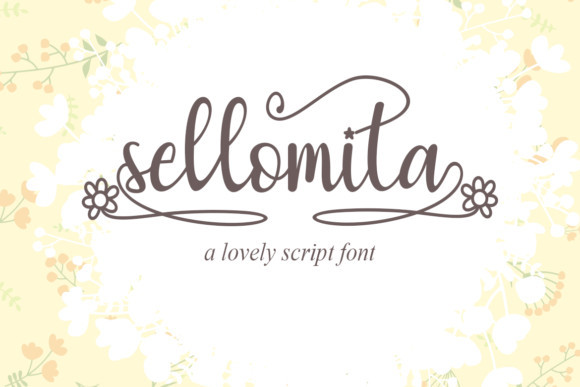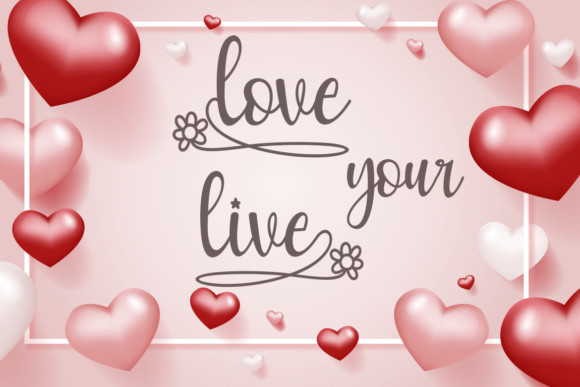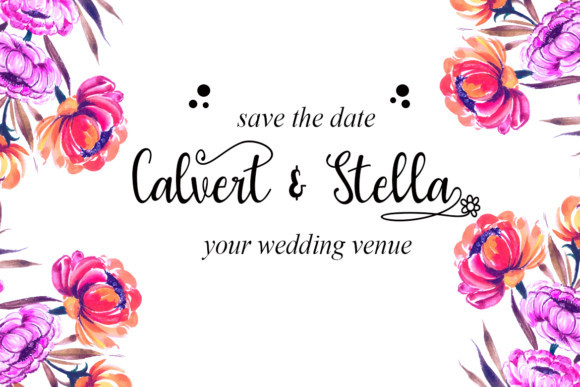
Sellomita Font
Sellomita FontSellomita feels equally charming and elegant. It looks lovely on wedding invitations, thank you cards, quotes, greeting cards, logos, business cards and every other design which needs a handwritten touch.